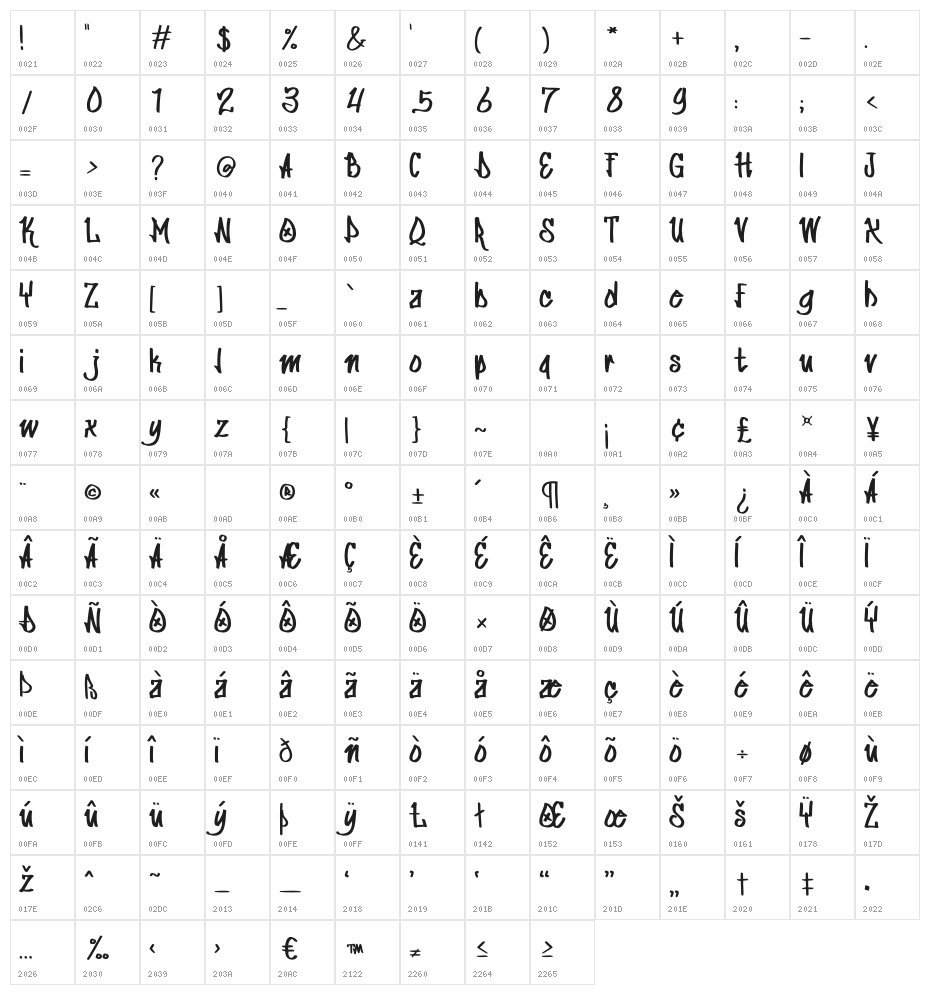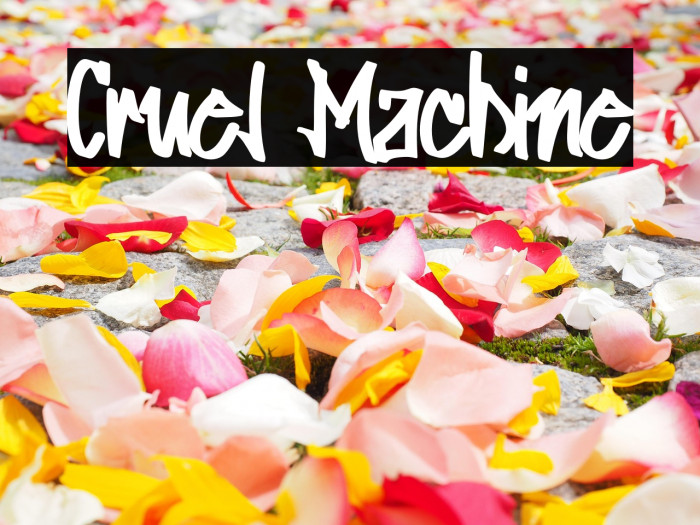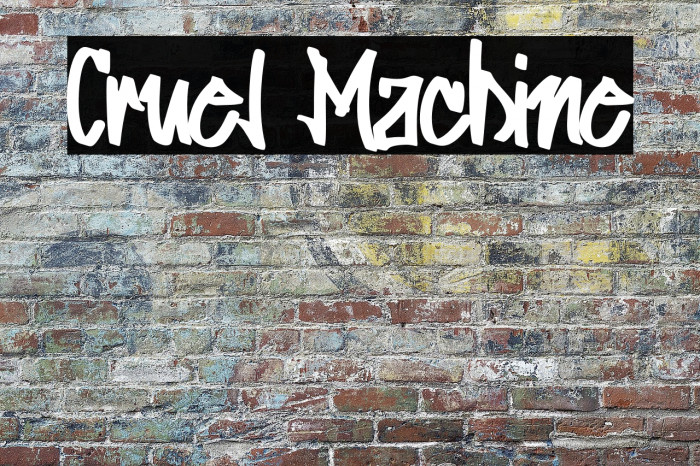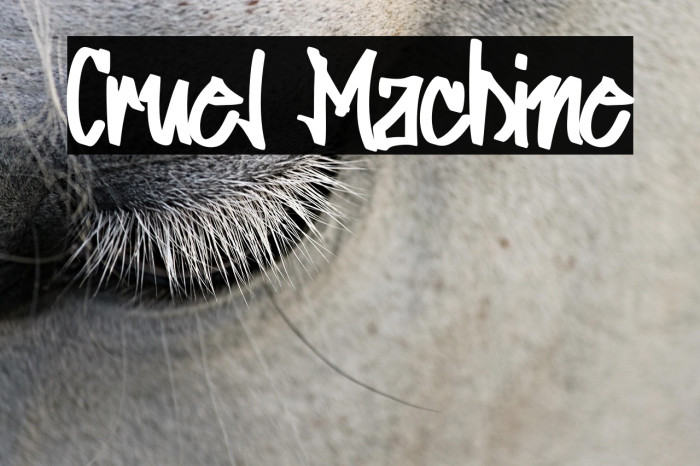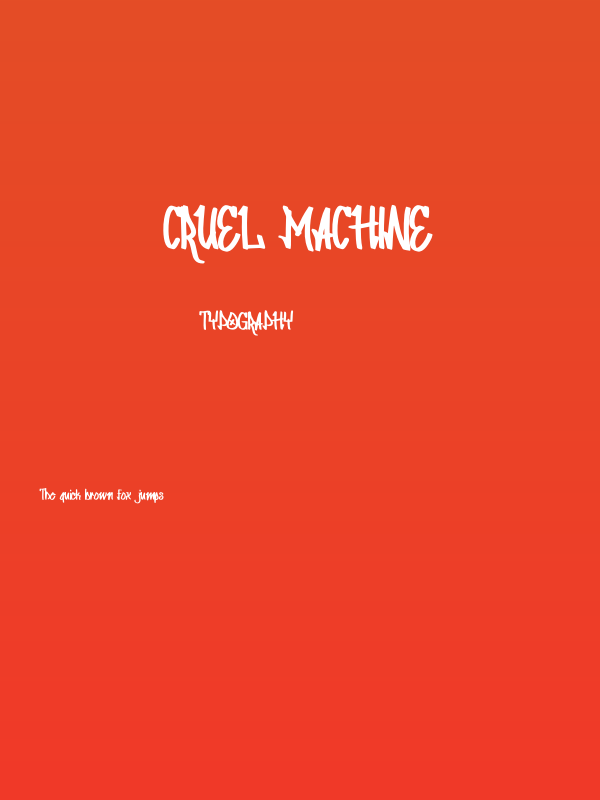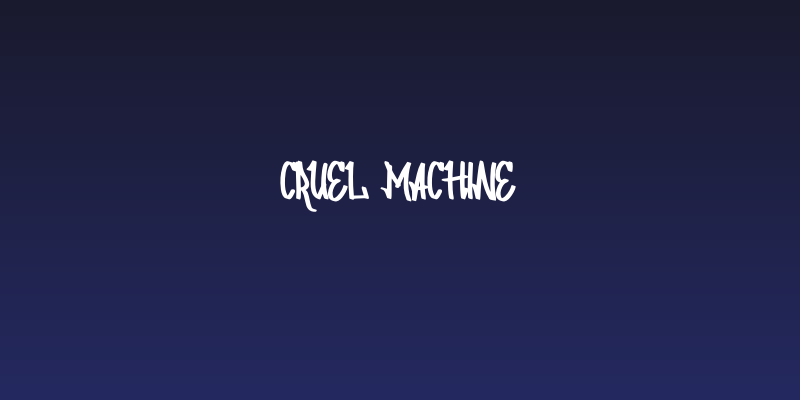
Cruel Machine Font
| حالة الاستخدام | Logos, Headlines, Posters |
| مشاريع مقترحة | Ideal for projects that require a personal touch, such as greeting cards, posters, and creative branding. Its energetic style is also suitable for music album covers and artistic event promotions. |